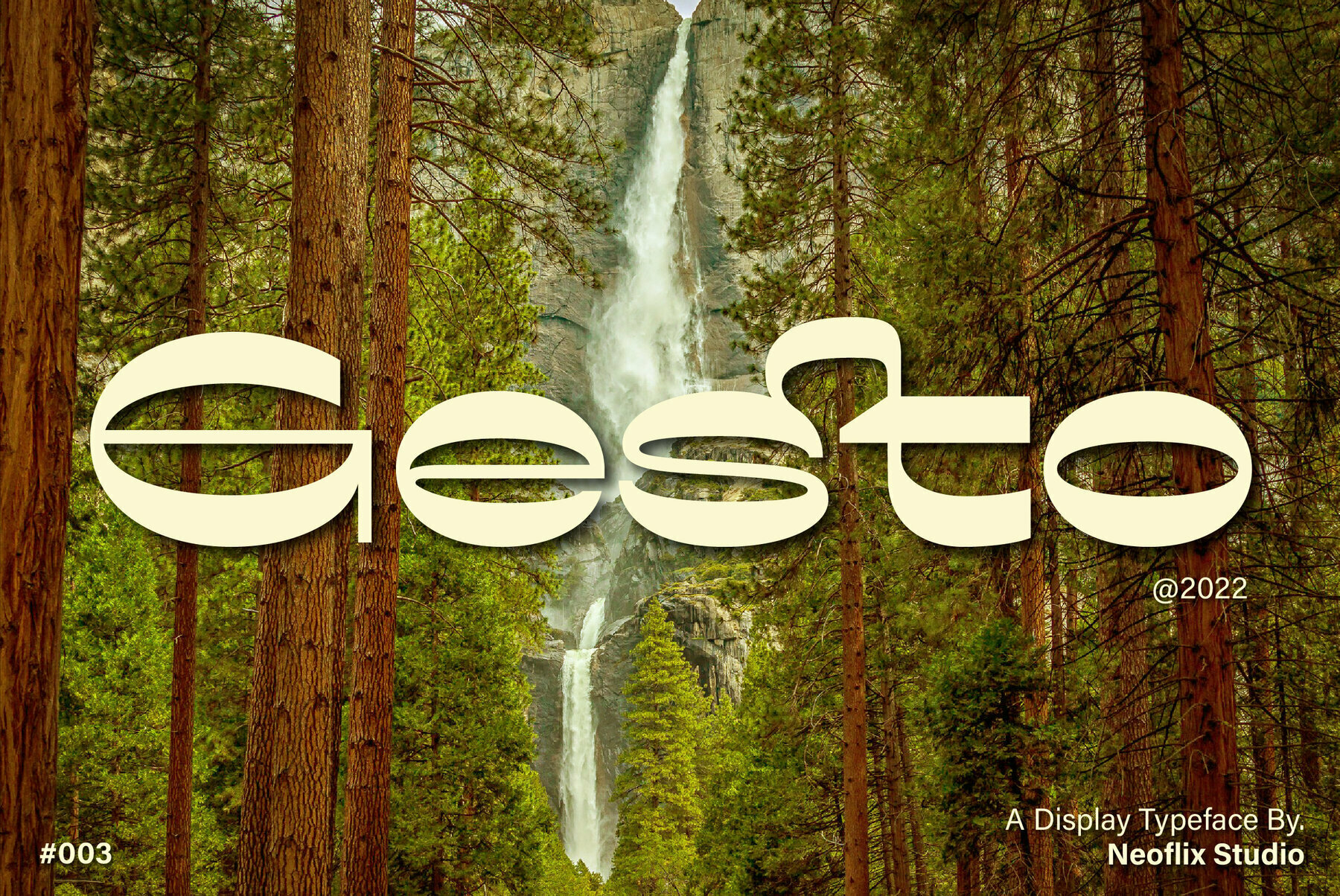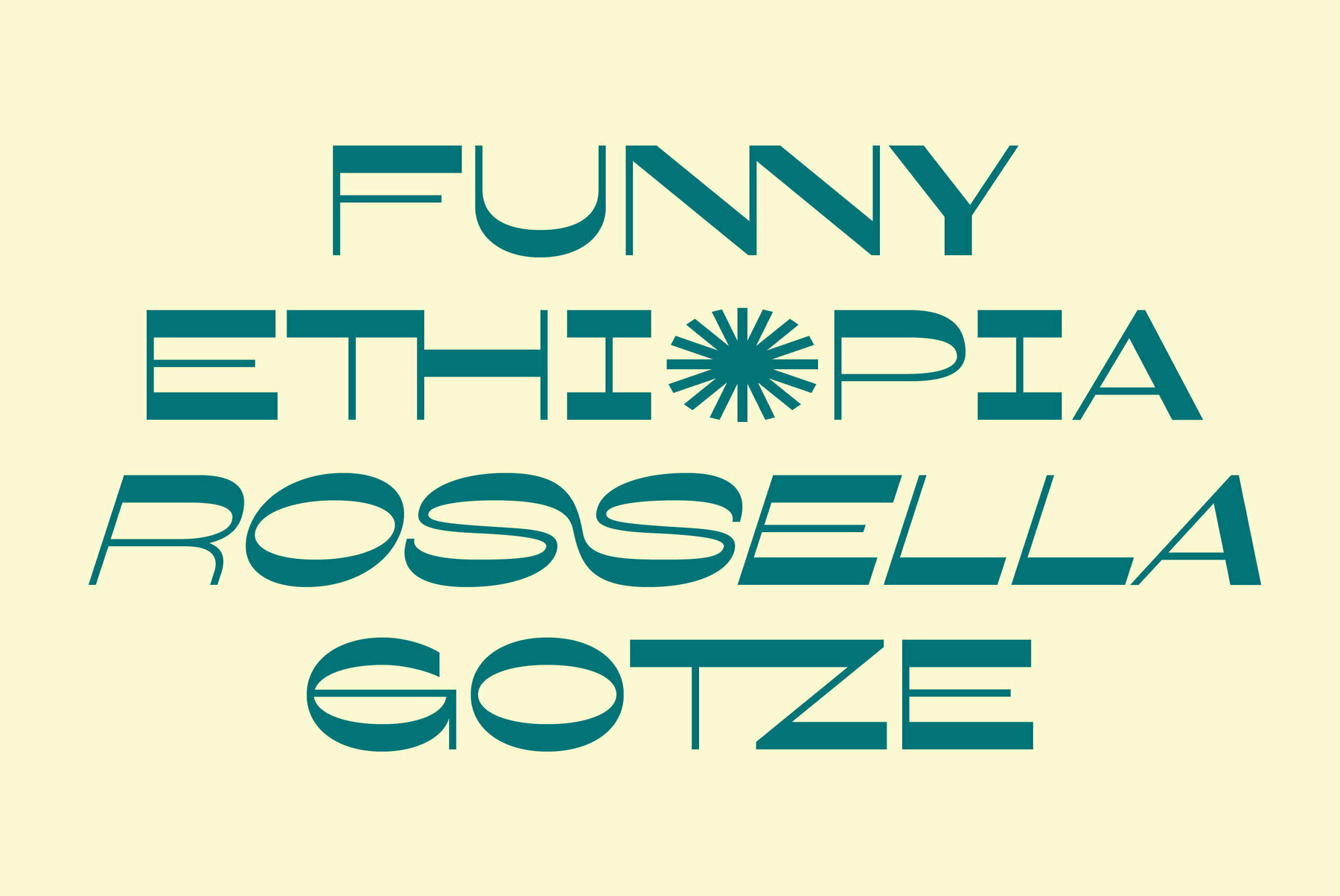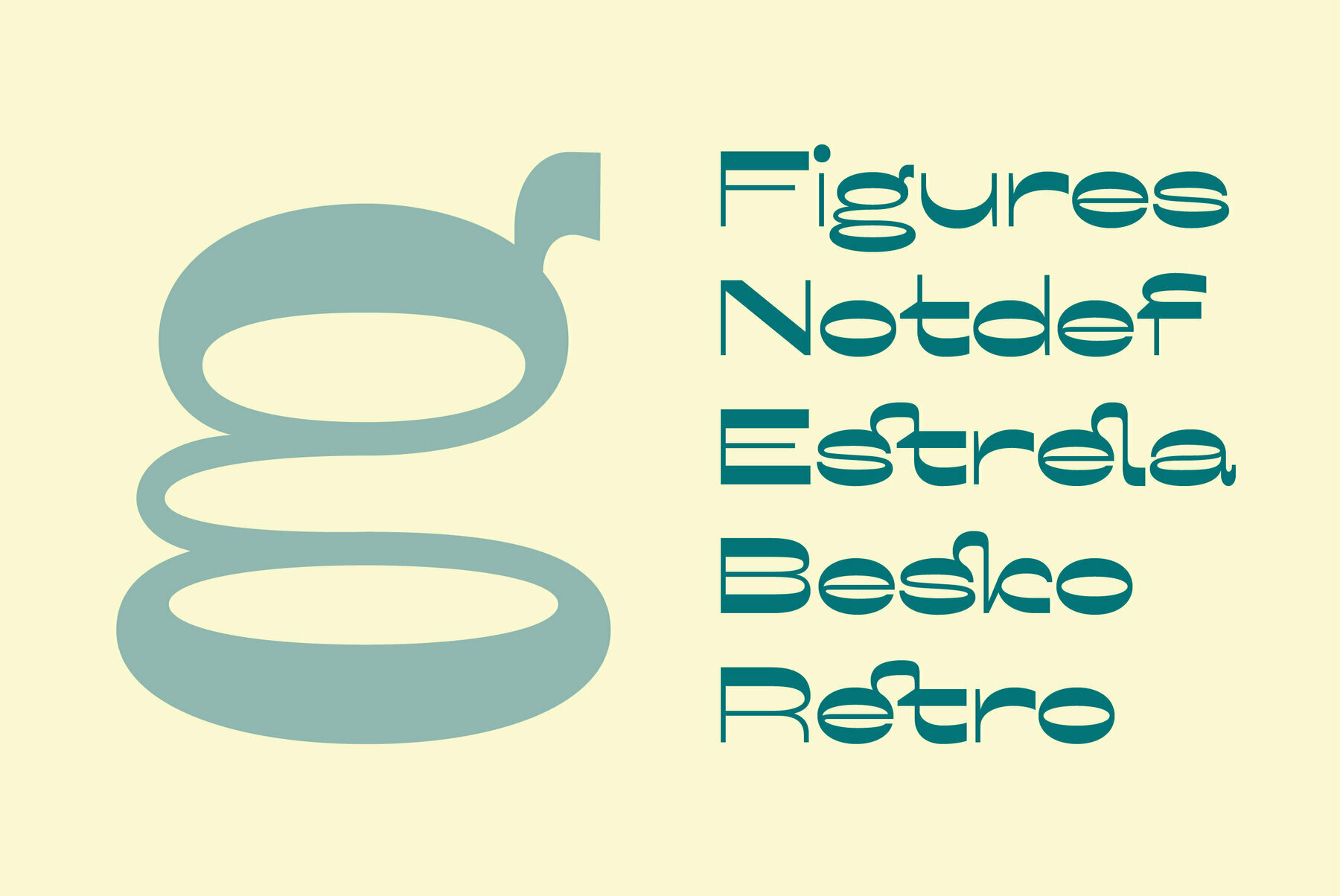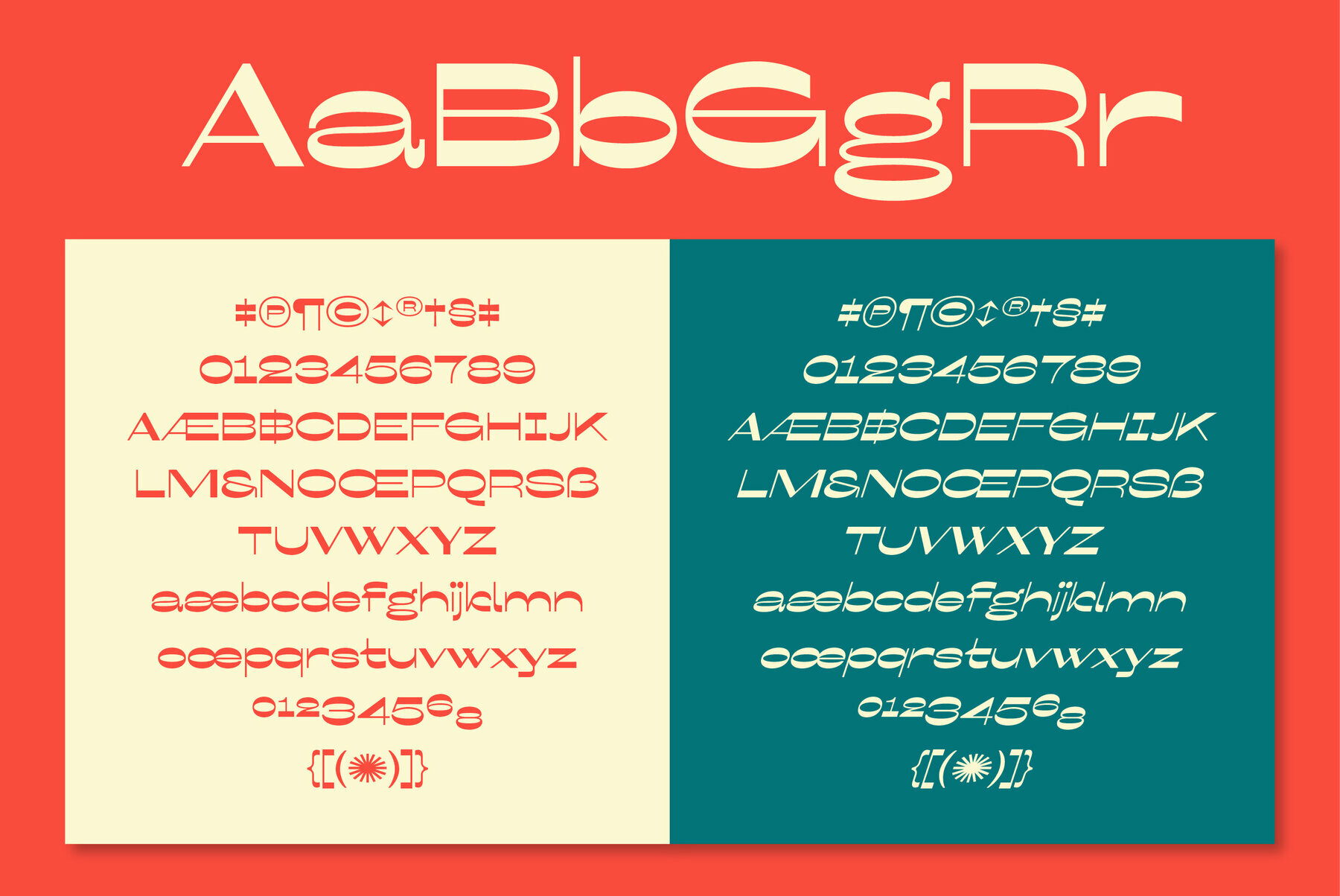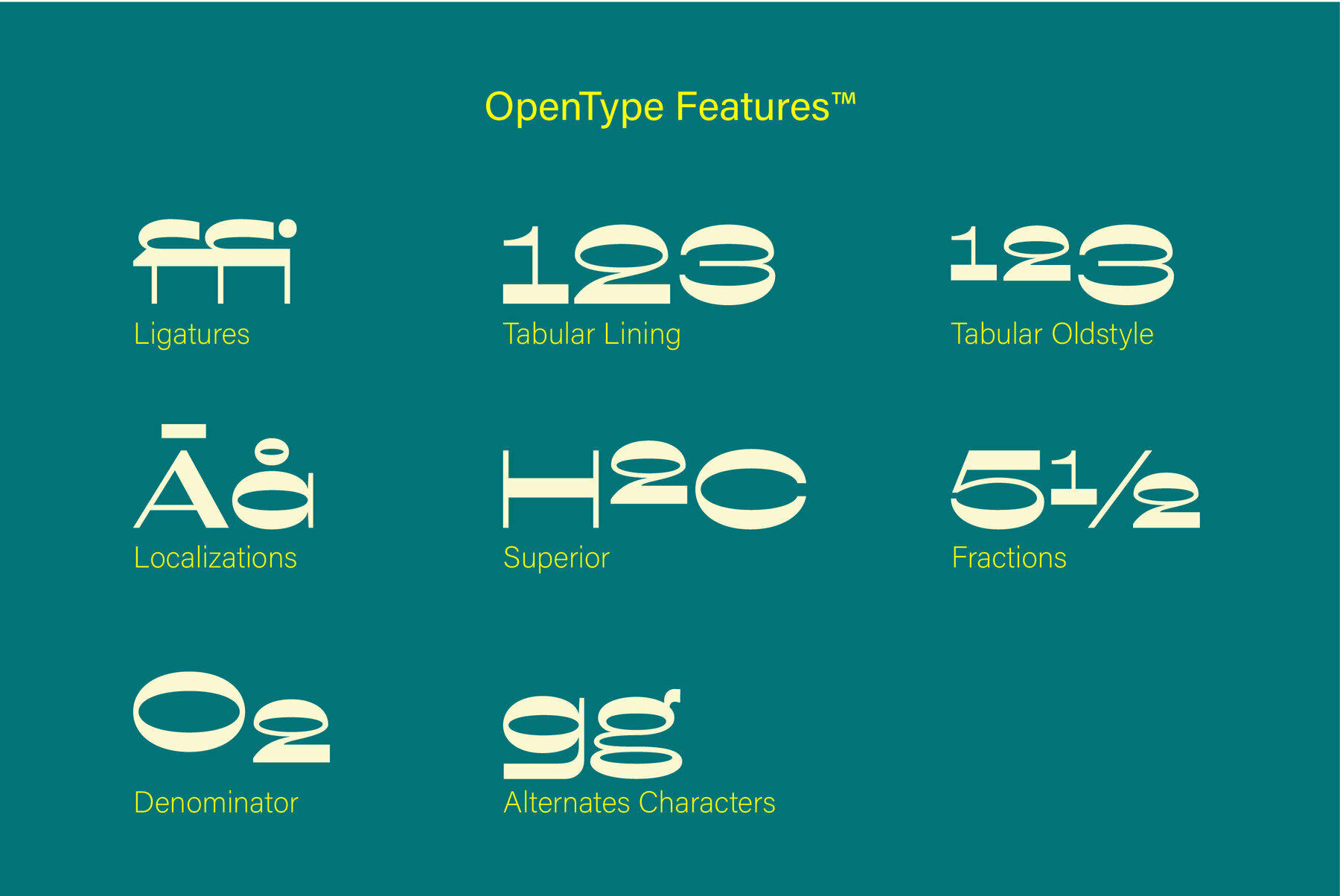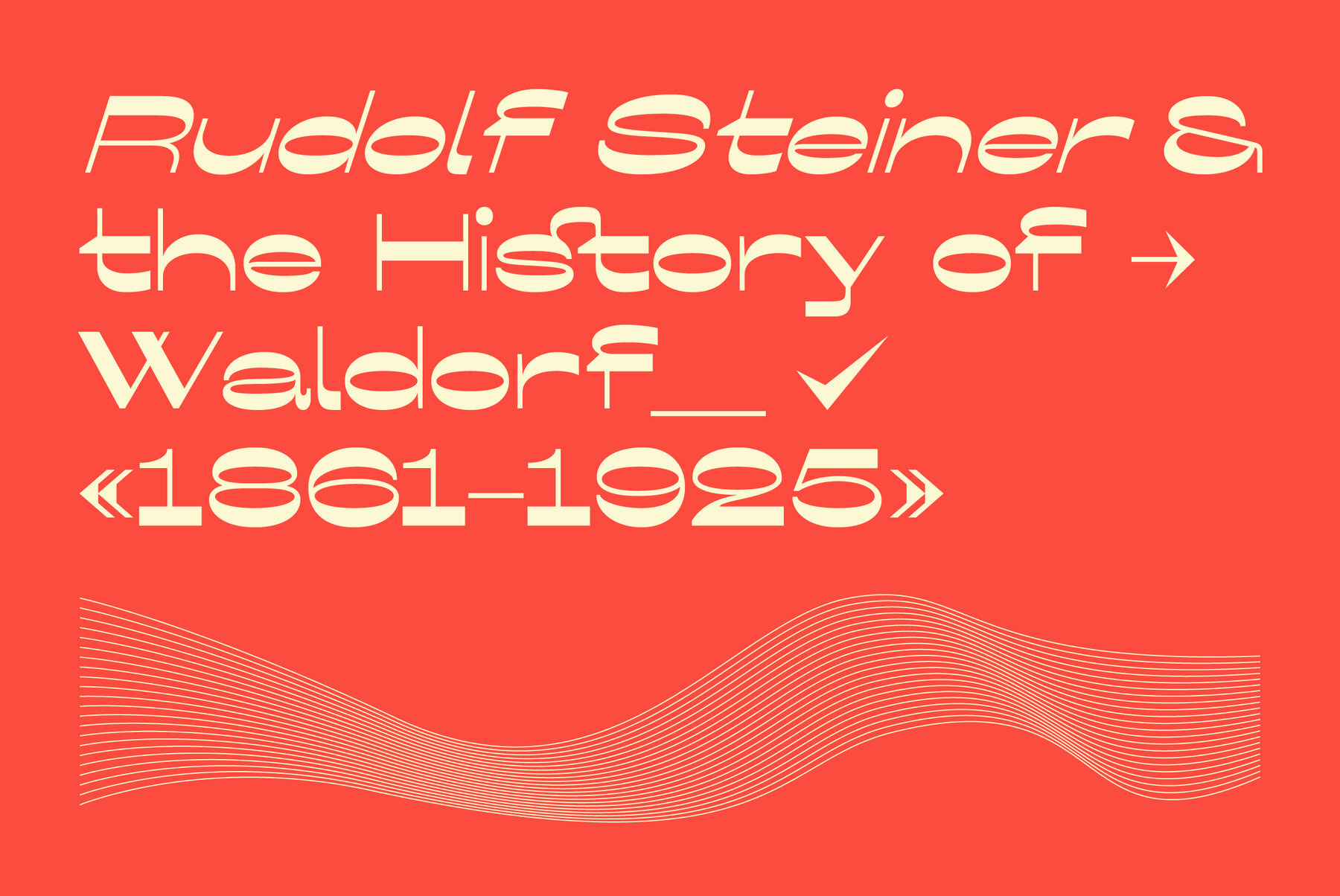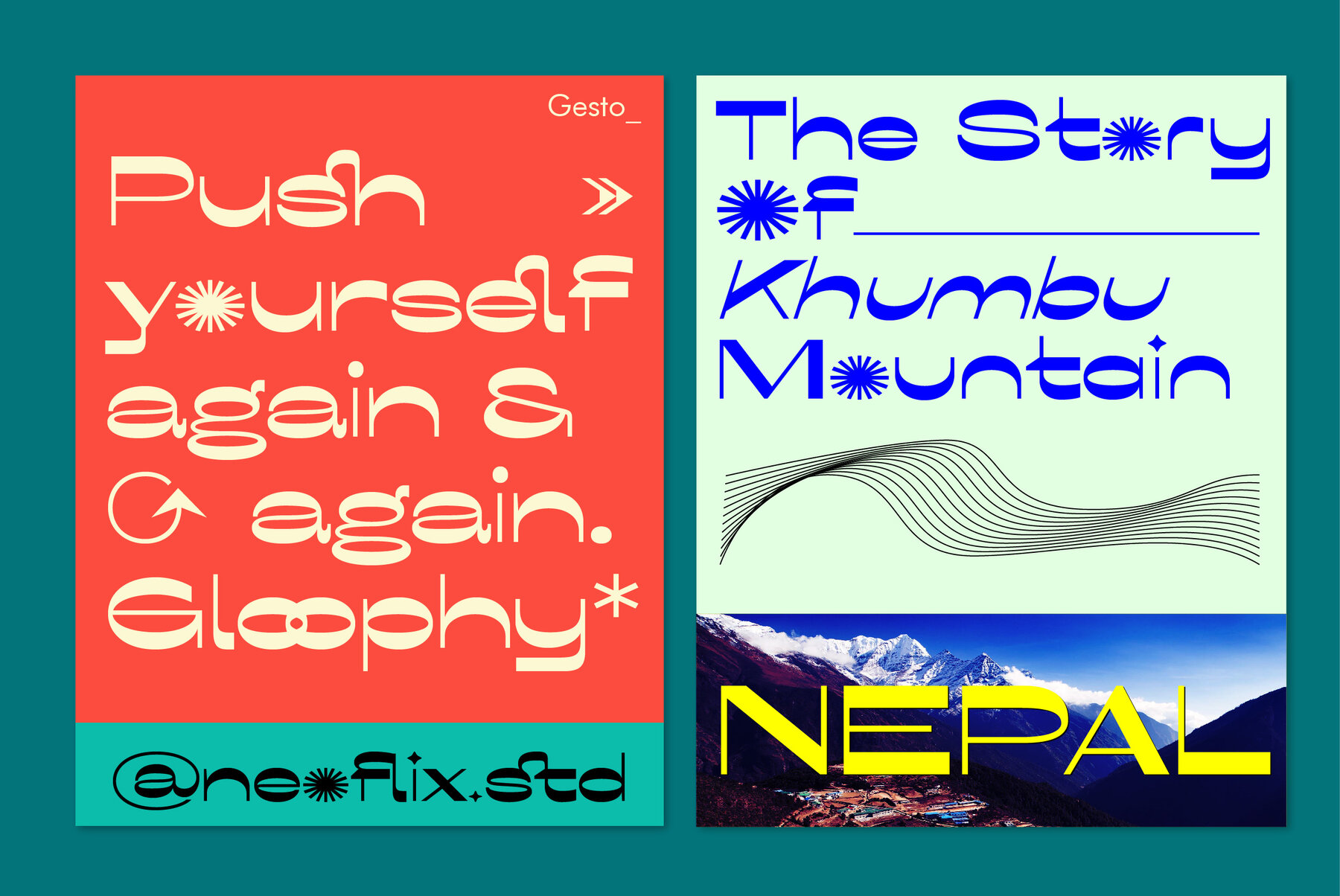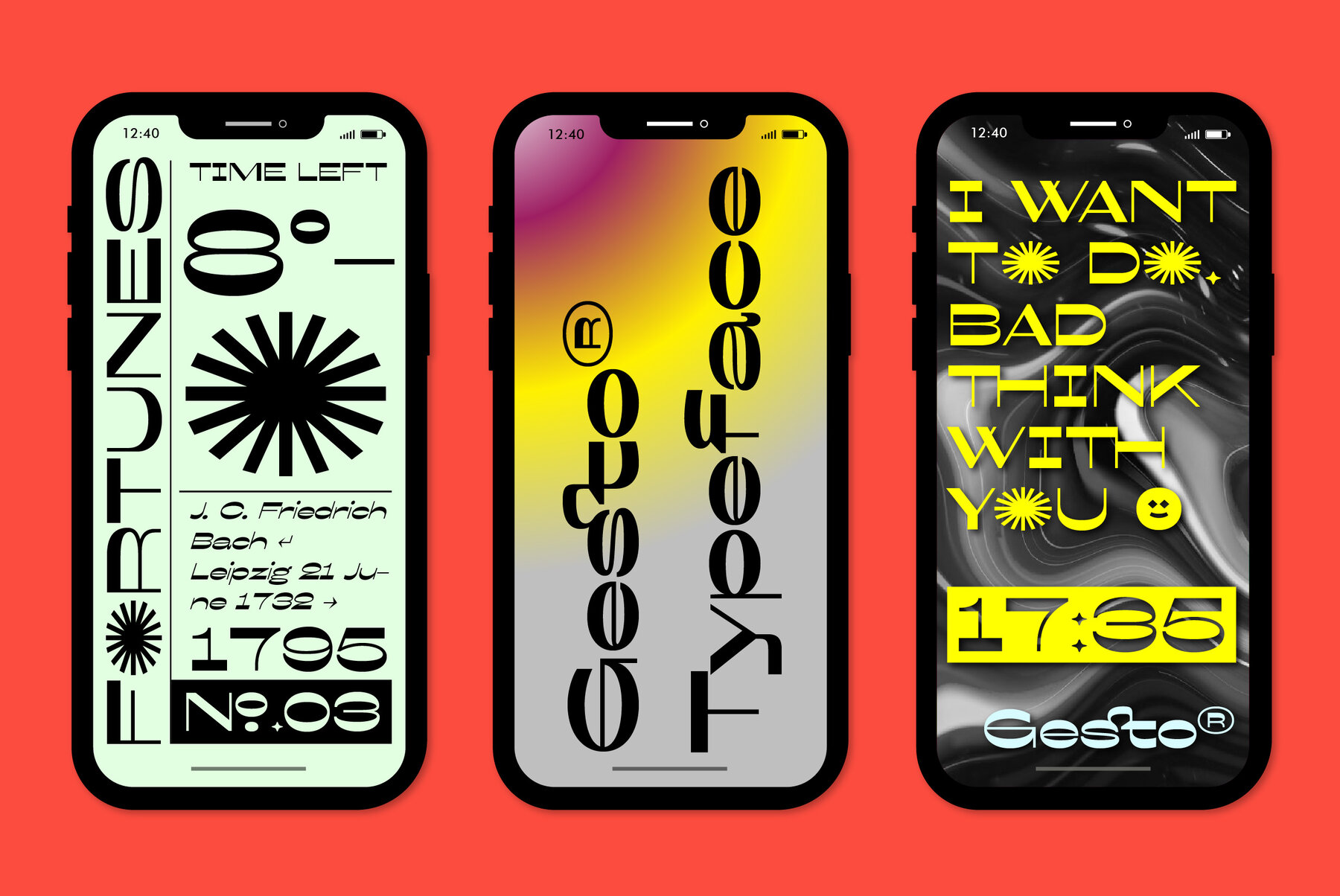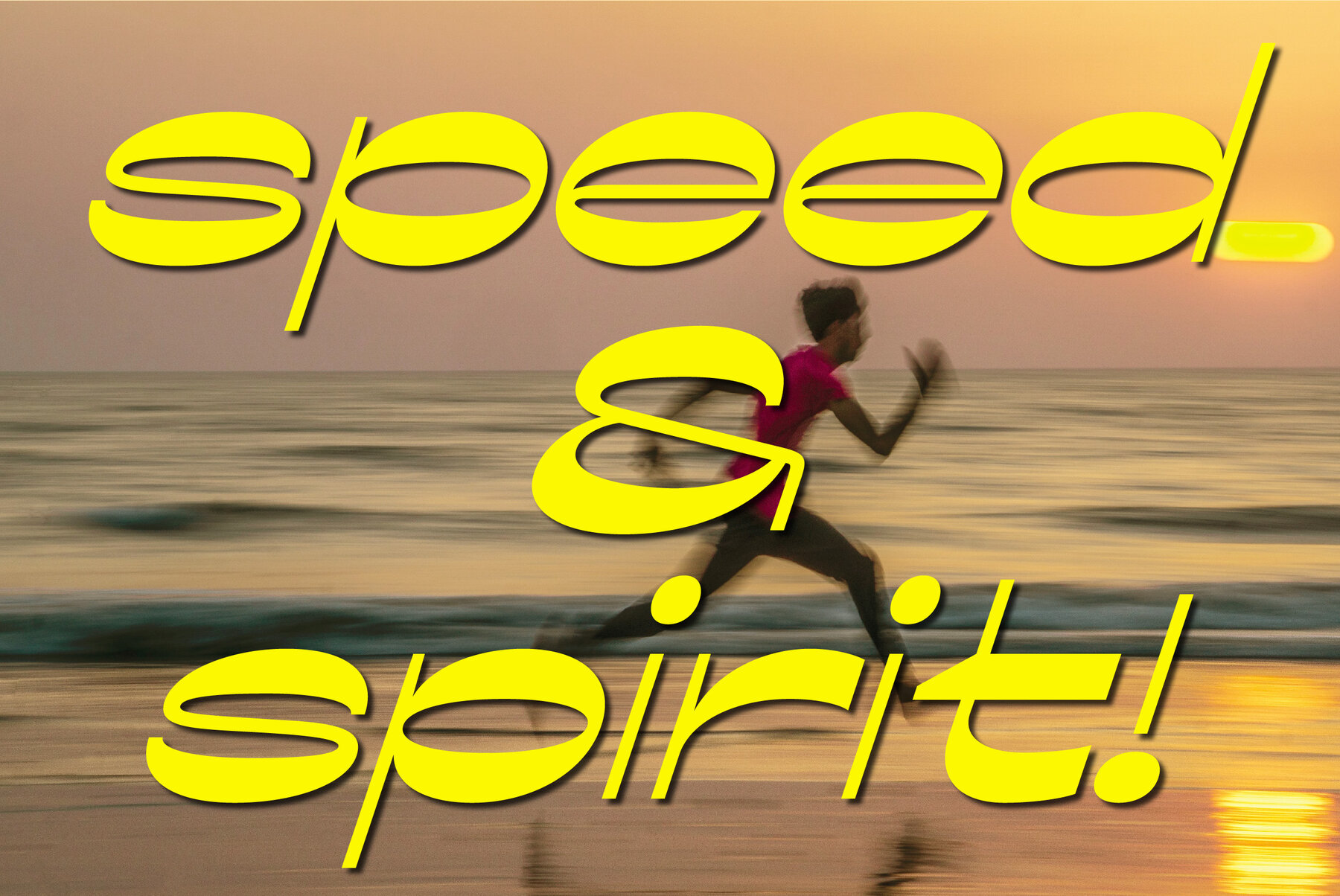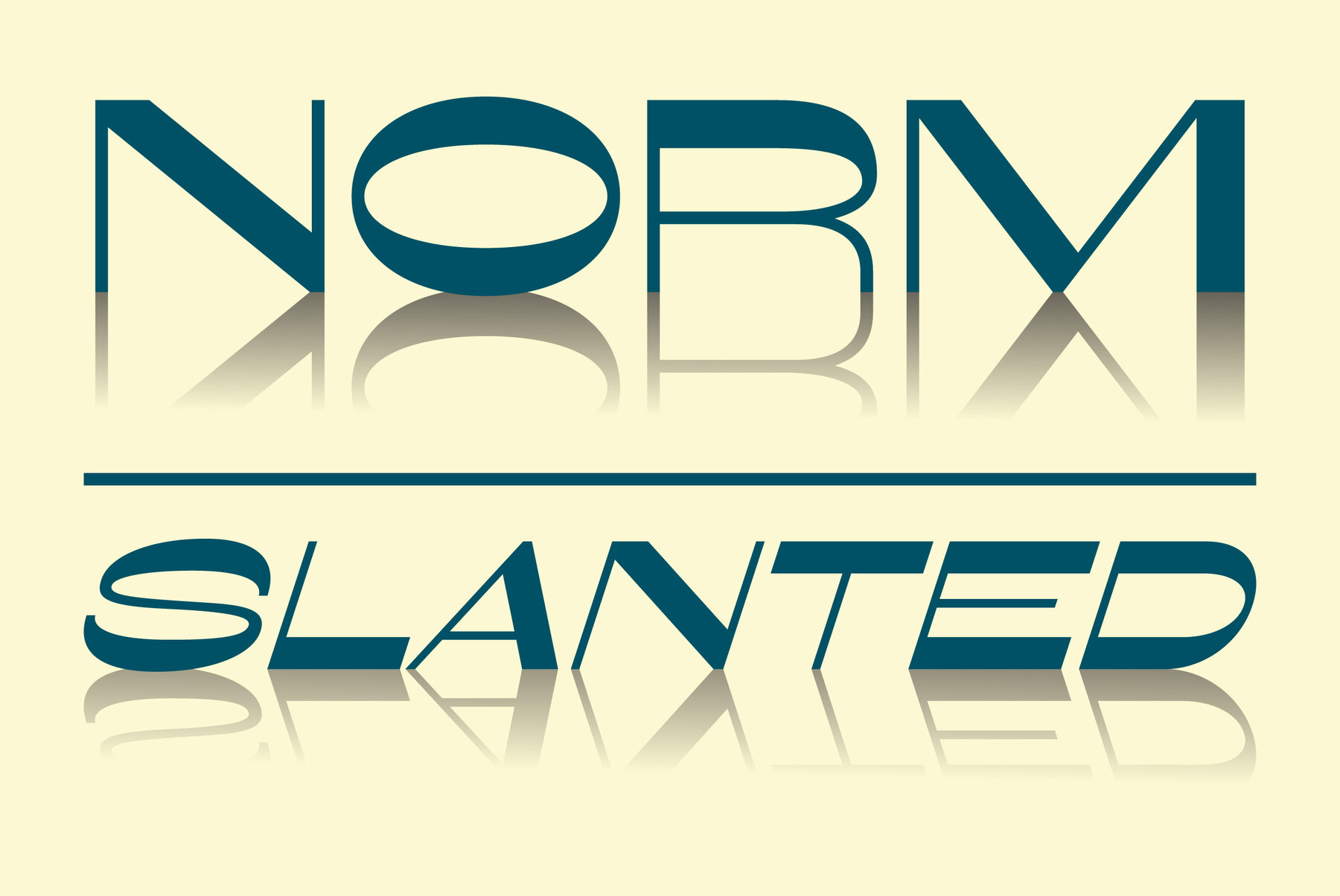
Gesto Font
Gesto is a extra wide retro sans serif with modern design. Gesto is a display typeface designed for use in wide size.
Inspired by style design that is a currently popular. Gesto have some alternative letter and ligatures to make it easier for you to choose a letter that fits your design.
Gesto is perfect use poster, headline, cover books, t-shirt and all you needs of every idea that you will pour in this modern era.
Gesto was build 535 glyphs with numbers, punctuation, symbol and support OpenType Features with +75 languages.